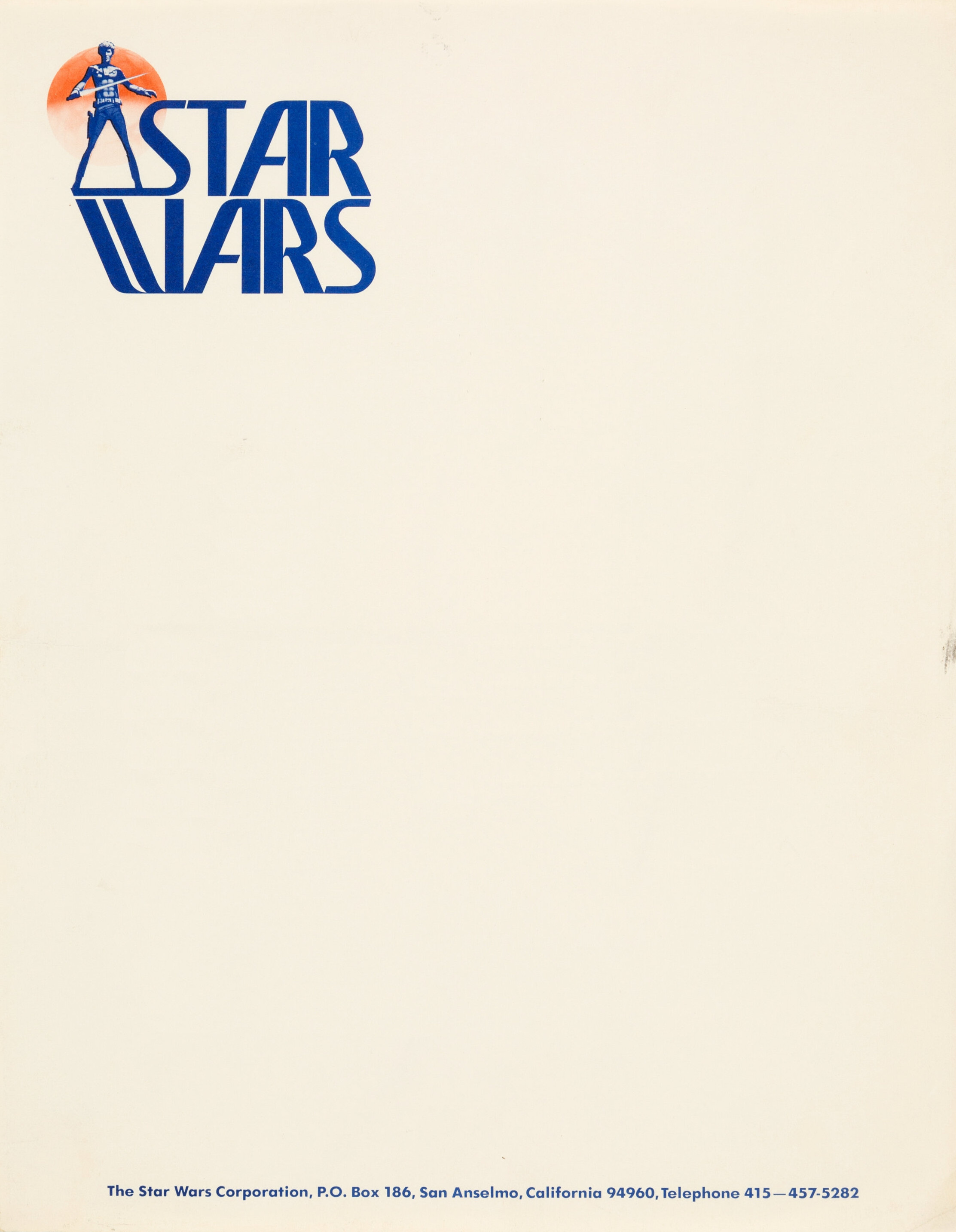
This Star Wars letterhead from 1976 showcases an early visual identity for the soon-to-be legendary franchise. The artwork, created by Star Wars concept artist Ralph McQuarrie, depicts Luke Skywalker silhouetted against a sunlit backdrop, while the distinctive logo text was designed by Joe Johnston, based on the Precis font. At the time, Star Wars was still in production, and The Star Wars Corporation handled the film’s legal, financial, and merchandising affairs. The company played a crucial role in shaping the business of Star Wars before being absorbed into Lucasfilm in 1980.